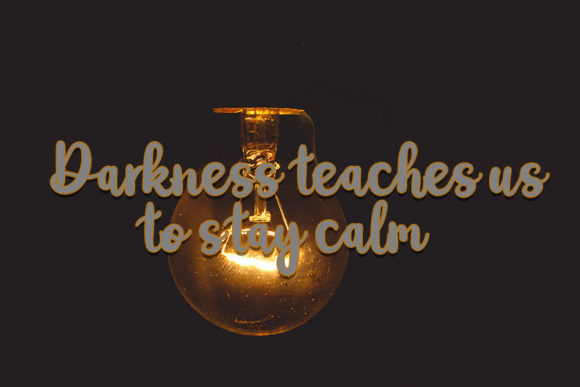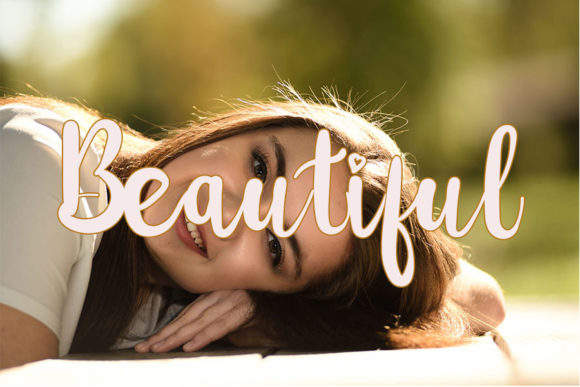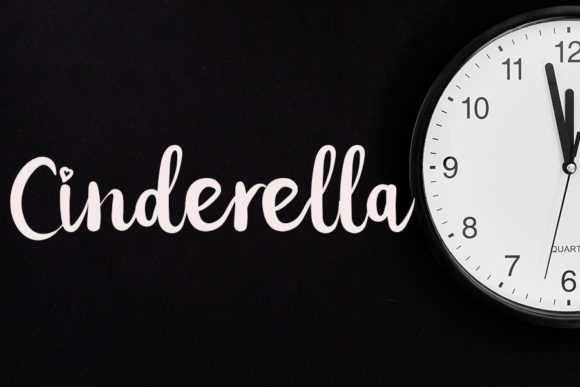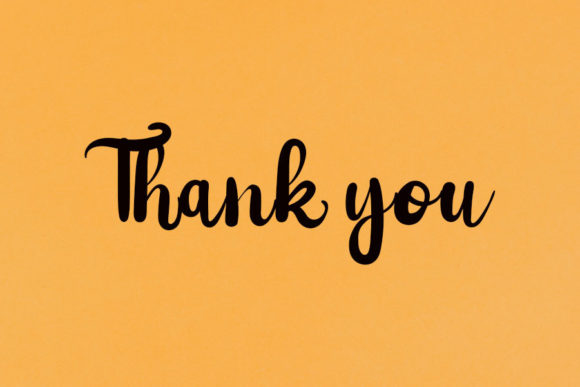
Introduction to Night Mode Font
Night Mode is a script font carefully created with a touch of elegance.
Key Features of Night Mode Font
Why Choose Night Mode Font?
Night Mode Font offers exceptional quality and versatility, making it a valuable addition to your design toolkit. Whether you’re creating for personal projects or commercial use, Night Mode Font delivers professional results.